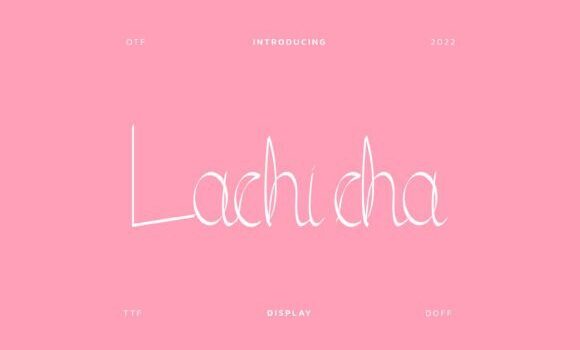
lachicha
Lachicha Font – Free Download Introduction to Lachicha Font Lachicha is a delicate and elegant handwritten font. 📸 Preview Gallery 6 images 📌 Product Name Lachicha Font 👤 Author inferno.type3 📂 Category Explore ⬇️ Download Lachicha Font FREE Free Download